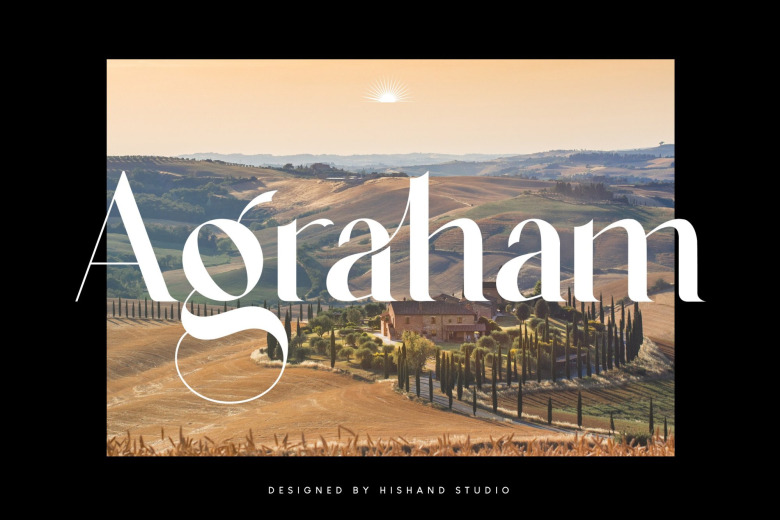
Agraham Font
Agraham is a distinct and classic serif font, that features a nostalgic vibe. This font is neatly crafted and highly detailed. It is PUA encoded which means you can access all of the glyphs and swashes with ease!